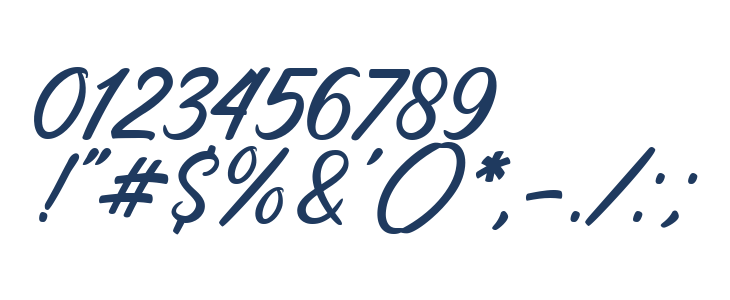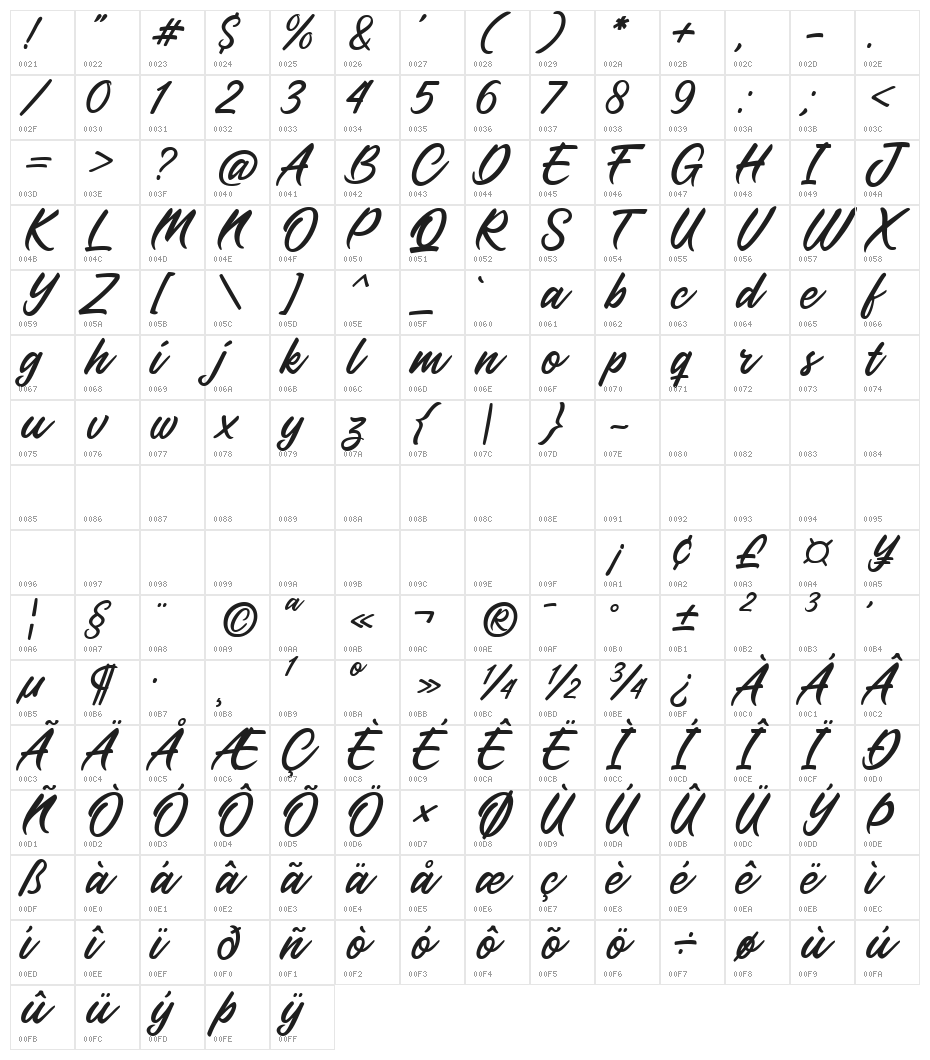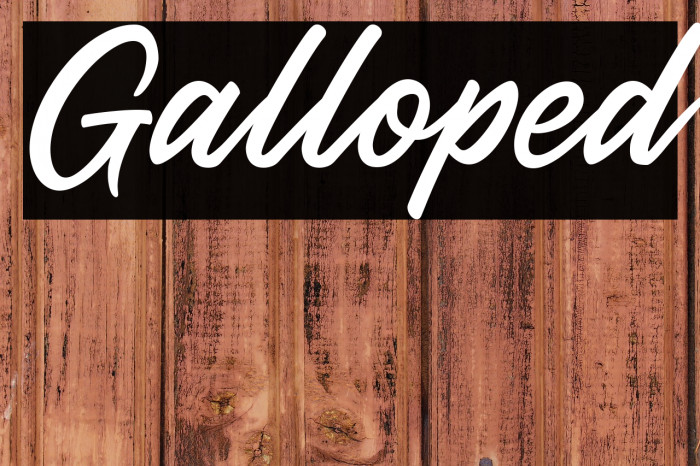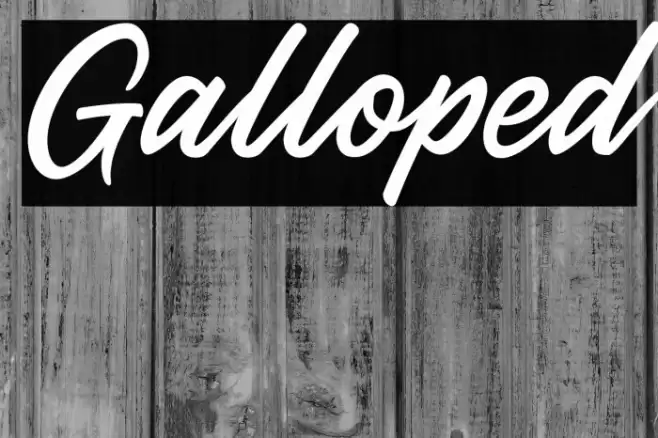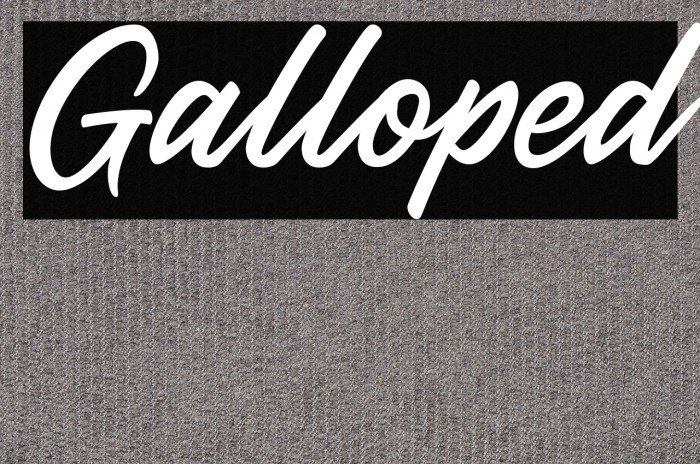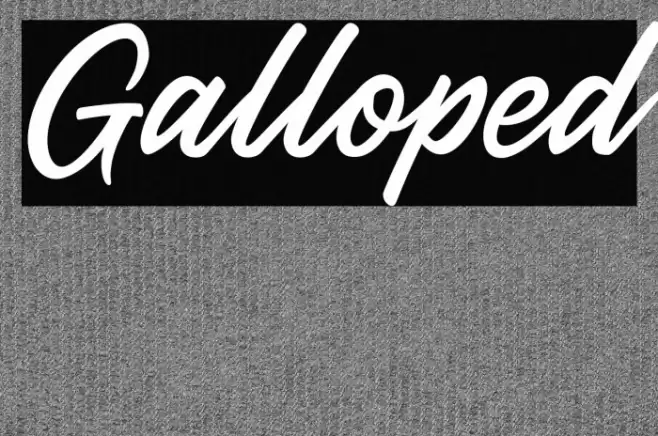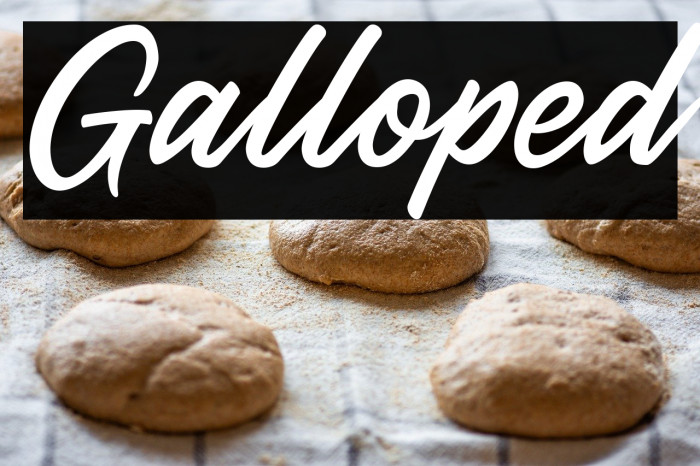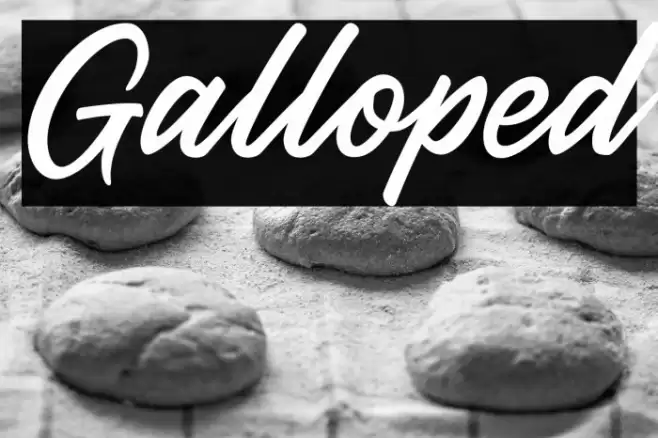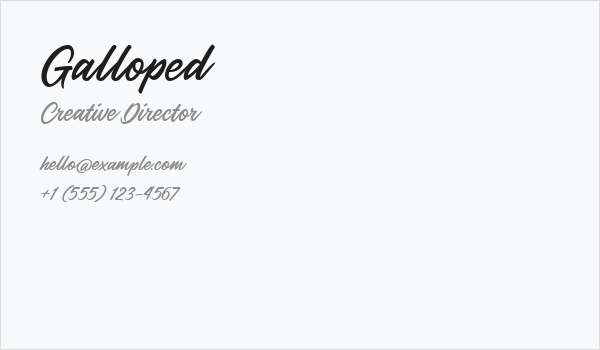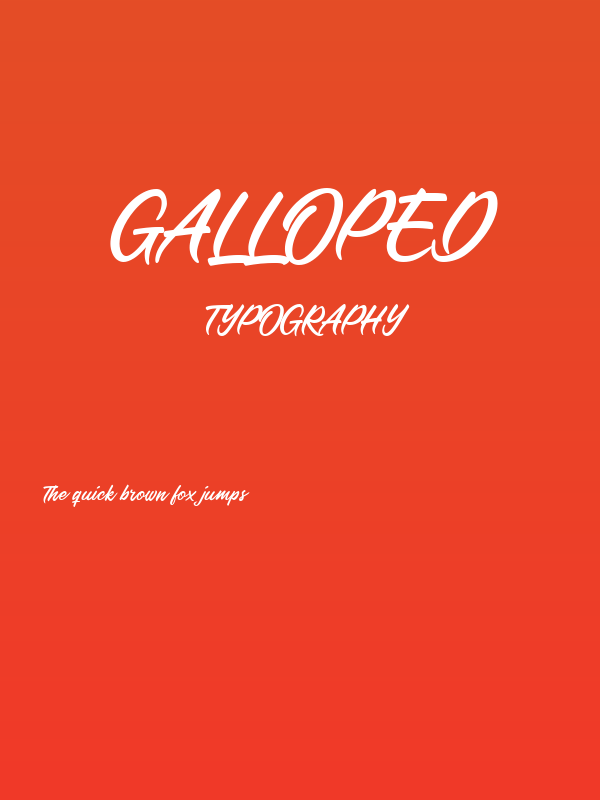
This font exudes a dynamic and energetic vibe with its bold, cursive style. The characters are fluid and connected, giving a sense of motion and elegance. The uppercase letters are slightly more upright, while the lowercase letters have a more pronounced slant, enhancing the script's flow. The numbers and special characters maintain the same cursive style, ensuring consistency across all glyphs. The strokes are thick and consistent, providing a strong visual impact. This font is ideal for projects that require a touch of sophistication and flair, such as invitations, branding, and headlines.
Use CaseHeadlines, Logos, Invitations
Proposed ProjectsIdeal for invitations, branding, and headlines that require a sophisticated touch.